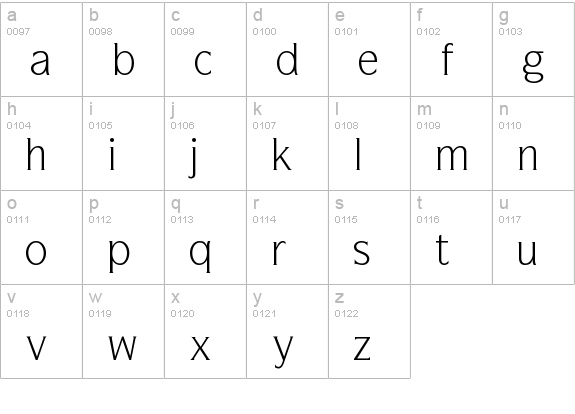
Symbol Regular is the standard, neutral variant in the Symbol typeface family \xE2\x80\x94 well suited to general body text, paragraphs, and standard typographic work.
Symbol Regular font is a versatile typeface that combines elegance with simplicity. Its clean and modern design makes it suitable for a wide range of design projects, from branding to editorial design. The font features a balanced mix of sharp edges and rounded corners, giving it a unique and distinctive look. Symbol Regular font is perfect for creating eye-catching headlines, logos, and text blocks that demand attention. Its legibility and readability make it a reliable choice for both print and digital designs. Whether you're working on a website, poster, or packaging design, this font is sure to make your content stand out. Best of all, Symbol Regular font is available for free download at FontsMarket.com. This means you can easily access and use this high-quality font in your projects without breaking the bank. Don't miss out on the opportunity to enhance your designs with the elegant simplicity of Symbol Regular font today!